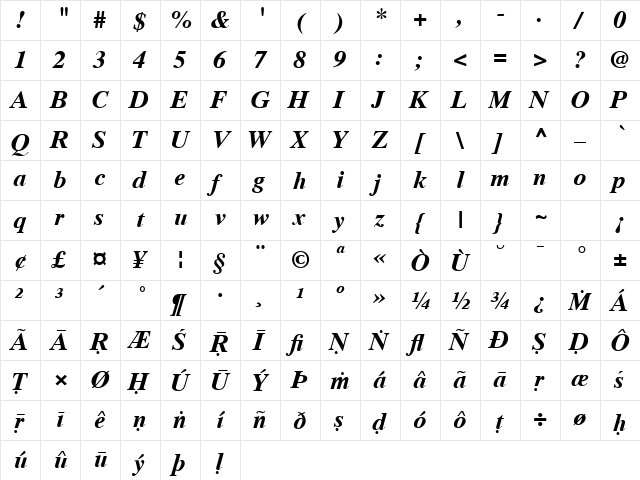
Tamal Bold Italic
Design Context for Tamal Typeface
Tamal is a composed and adaptable typeface that performs quietly and consistently across a wide range of design contexts. The dynamic lean of this cut emphasises speed and emphasis in any layout. Its bold stroke weight gives it real presence on the page.